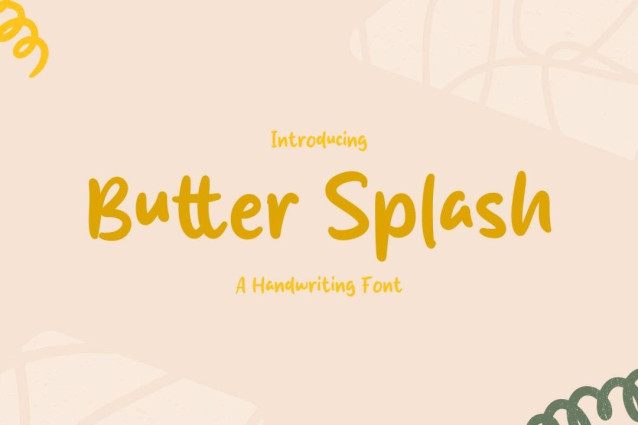
Butter Splash Font
Butter Splash Font is a simple and friendly handwritten font. Its natural and unique style makes it incredibly fitting to a large pool of designs. The only limit is your imagination!